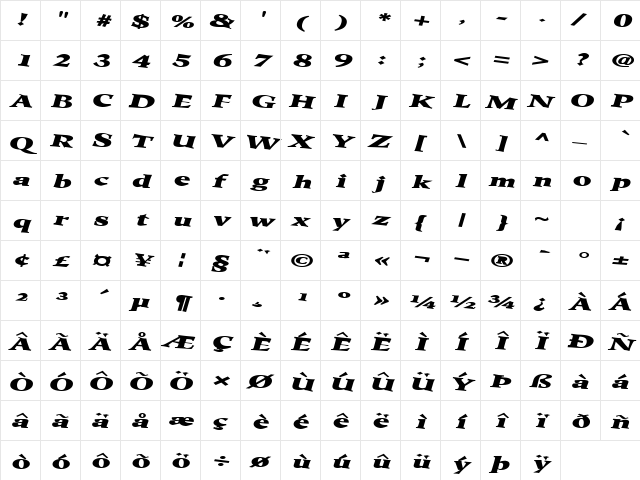
Complete PetPeeve61 Bold glyph index. Displaying only characters natively supported by PetPeeve61 Bold font.
PetPeeve61 is a composed and adaptable typeface that performs quietly and consistently across a wide range of design contexts. Its bold stroke weight gives it real presence on the page.